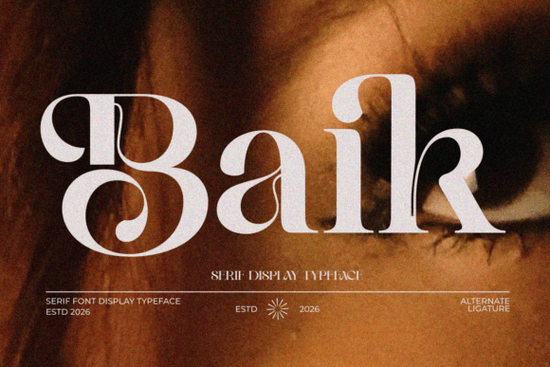
Baik Font is a versatile serif typeface that offers a perfect balance between classic and modern design. If you're looking for a font that can elevate your branding, editorial projects, or marketing materials, Baik provides a refined look without sacrificing readability. Its elegant structure makes it ideal for both headlines and body text, ensuring your message stands out with a touch of sophistication.
Designed with attention to detail, Baik features graceful proportions and sharp edges that give it a luxurious feel. This makes it particularly well-suited for fashion campaigns, packaging, and premium print materials. Whether you're working on a logo, invitation, or website layout, Baik adds a professional and stylish presence that feels timeless yet contemporary.
For designers and small business owners, choosing the right font can make a big difference in how your work is perceived. Baik Font is an excellent choice if you want to maintain a polished appearance while keeping your designs fresh and modern. Its versatility means it can be used across multiple platforms and formats without losing its visual appeal.
What Makes Baik Font Stand Out?
Baik Font is more than just a pretty face it's designed with functionality in mind. The font’s balanced contrasts and clean lines ensure it remains legible even at smaller sizes, making it suitable for a wide range of applications. From digital displays to printed materials, Baik adapts seamlessly, offering consistent quality across different mediums.
One of the key strengths of Baik is its ability to blend into various design styles. Whether you're going for a traditional look or something more modern, this font can fit right in. Its subtle variations in weight and spacing allow for creative flexibility, giving you more control over how your message is presented.
How to Use Baik Font in Your Projects
If you're working on a brand identity, Baik Font can serve as a strong foundation for your typography. Pair it with a simple sans-serif for contrast, or use it alone for a more cohesive and elegant look. For editorial layouts, it works well as a headline font, drawing attention while maintaining a sense of refinement.
Print-on-demand sellers will appreciate how Baik enhances the visual appeal of their products. Whether it's for t-shirts, mugs, or stationery, using this font can help your designs stand out in a competitive market. Its high-quality structure ensures that it looks great in both digital and physical formats.
Small businesses looking to create a professional image can benefit from using Baik in their marketing collateral. From business cards to social media posts, this font adds a level of polish that can make a lasting impression on customers.
Before finalizing your design, take some time to test Baik in different contexts. See how it looks with your color scheme, background, and other design elements. This will help you ensure that it complements your overall vision and meets your aesthetic goals.
Remember, the right font can enhance your message and make your work more memorable. With Baik Font, you’re not just choosing a typeface you’re investing in a tool that can elevate your creativity and professionalism.